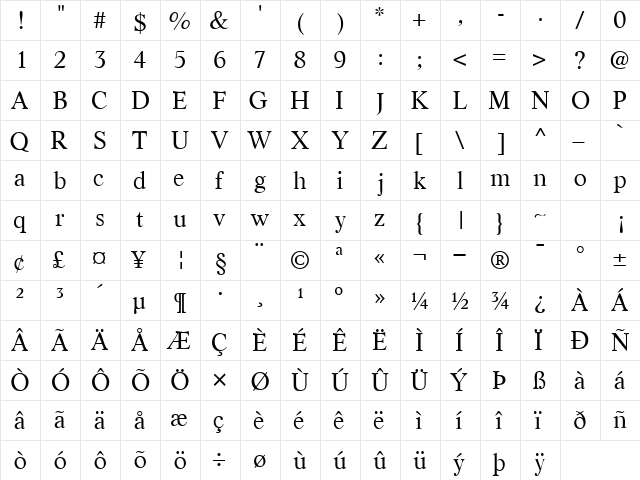
ResourceSSK Regular
Design Context for ResourceSSK Typeface
ResourceSSK offers clean, dependable letterforms without strong stylistic allegiance, making it a practical choice for designers who need flexibility.